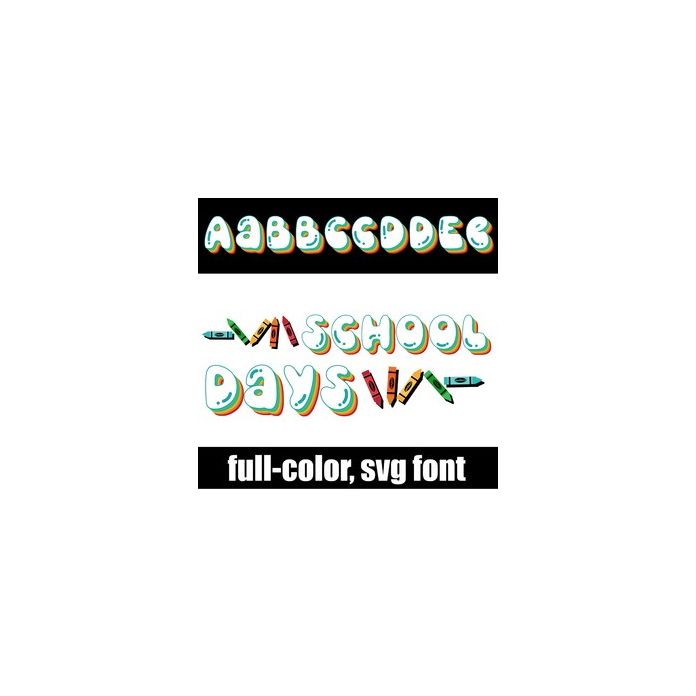
This full-color font features a retro style letter with a rainbow background. Access the crayon flourish by typing the greater than and less than glyph.